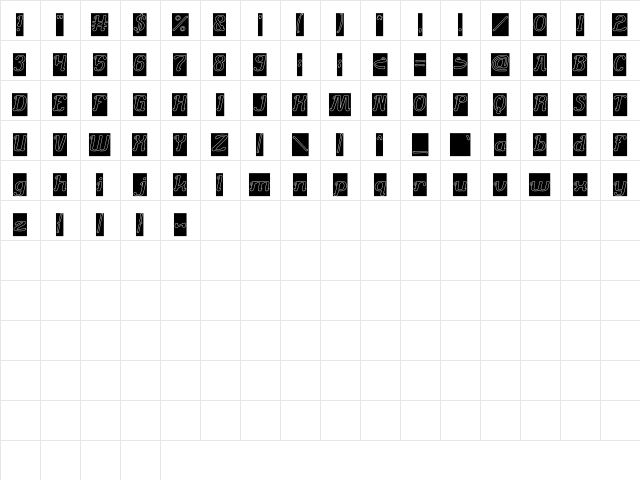
Knowing How-Hollow-Inverse Regular
Complete Knowing How-Hollow-Inverse Regular glyph index. Displaying only characters natively supported by Knowing How-Hollow-Inverse Regular font.
Design Context for Knowing How-Hollow-Inverse
Knowing How-Hollow-Inverse is a composed and adaptable typeface that performs quietly and consistently across a wide range of design contexts.